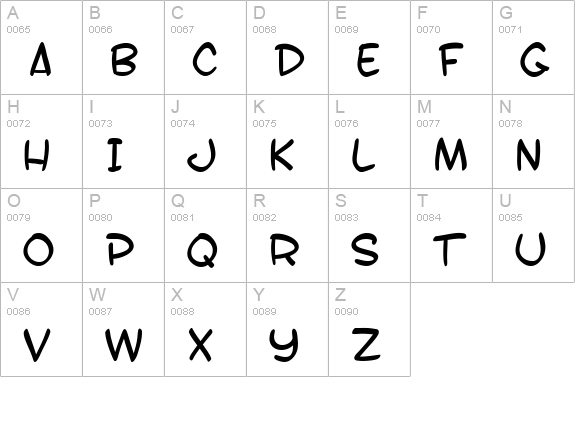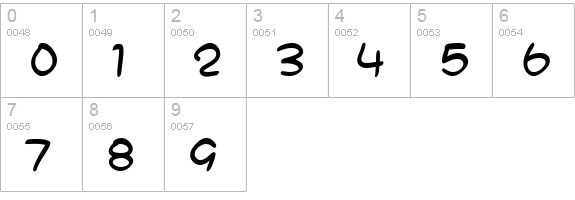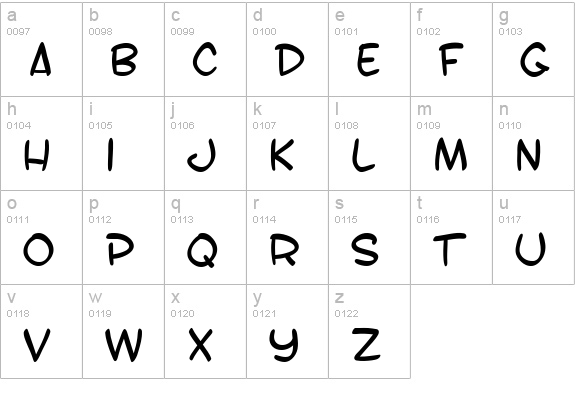
SF Toontime B Font Details
SF Toontime B is a delightful and playful font that adds a touch of whimsy to any project. With its rounded shapes and friendly curves, this font brings to life the fun and excitement of a Saturday morning cartoon. Whether you're designing a children's book, creating a logo for a toy store, or just looking to inject a bit of lightheartedness into your design, SF Toontime B is the perfect choice. What makes SF Toontime B even more appealing is that it is freely available to download at FontsMarket.com. Yes, you read that right – this amazing font can be yours without spending a dime. It's like getting a box of crayons for free, allowing you to unleash your creativity without any constraints. The versatility of SF Toontime B is truly remarkable. It can effortlessly transition from cheerful and playful to bold and eye-catching, making it suitable for a wide range of design projects. Its legibility and clarity also ensure that your message will never be lost in translation. Every letter in SF Toontime B is crafted with care, ensuring that each character seamlessly blends with the others. The smooth lines and harmonious proportions create a cohesive and visually appealing typography experience. And with a generous selection of alternate characters and ligatures, you can truly customize your design and give it a unique touch. So, why wait? Go ahead and download SF Toontime B for free at FontsMarket.com. Let your imagination run wild and watch as your designs come to life with this whimsical and captivating font. Whether you're designing for children or simply want to inject a sense of fun into your work, SF Toontime B is the perfect choice.